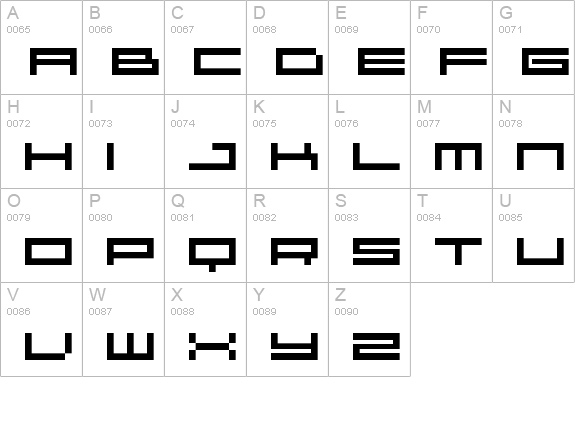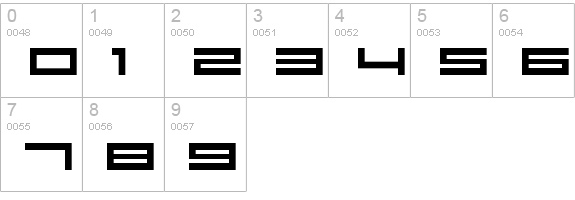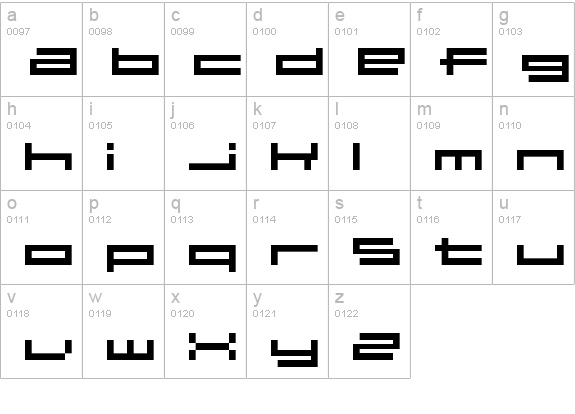
04b 31 font is a modern and stylish typeface that exudes a sense of simplicity and sophistication. With its clean lines and contemporary look, this font is perfect for a wide range of design projects, from branding to web design. The versatility of 04b 31 font makes it a great choice for both professional and personal use. What sets 04b 31 font apart is that it is available for free download at FontsMarket.com. This means that you can easily access this high-quality font without any cost, making it a valuable addition to your font collection. Whether you need a sleek and modern typeface for a website or a clean and professional look for a print project, 04b 31 font has you covered. Overall, 04b 31 font is a fantastic option for anyone looking for a modern and stylish font that is both versatile and free to download. With its sleek design and easy availability, this font is sure to enhance any design project you undertake.